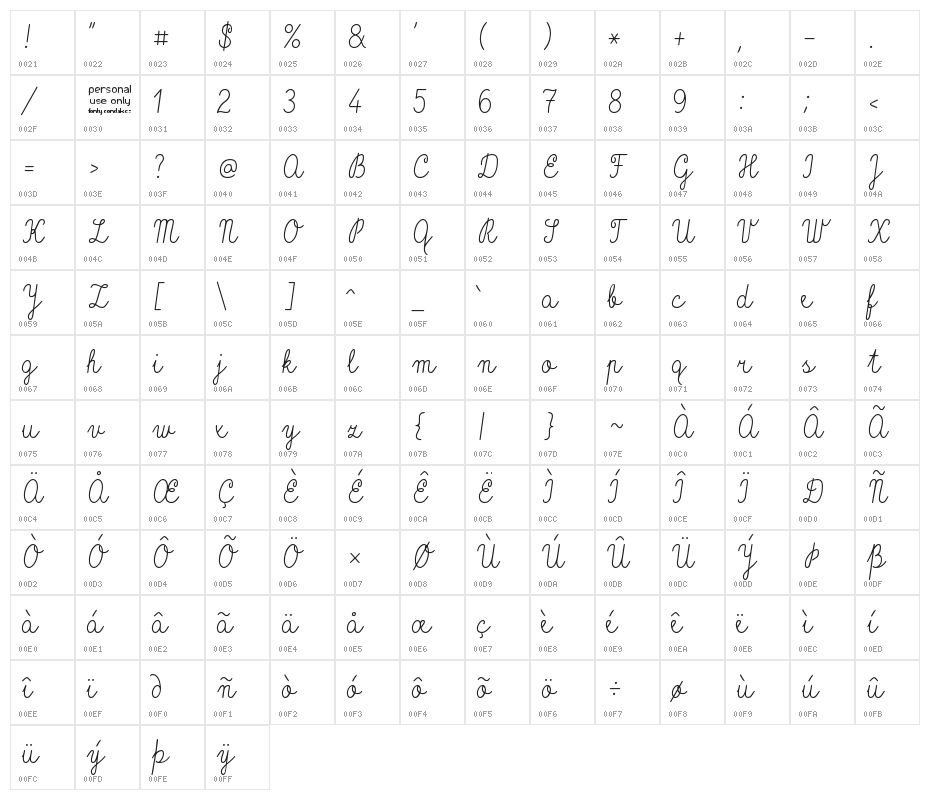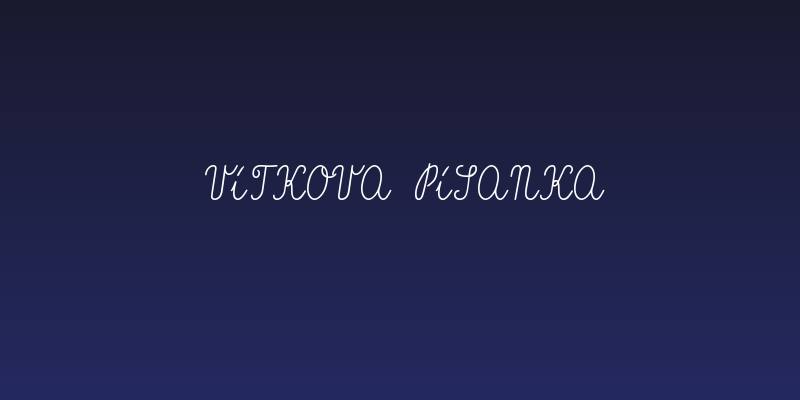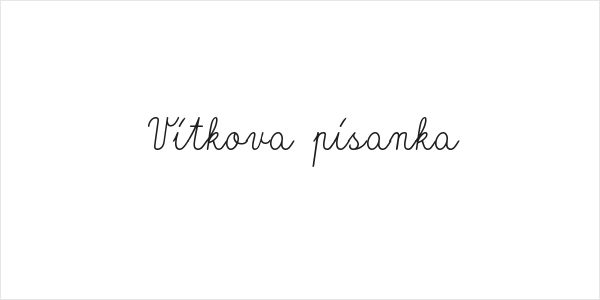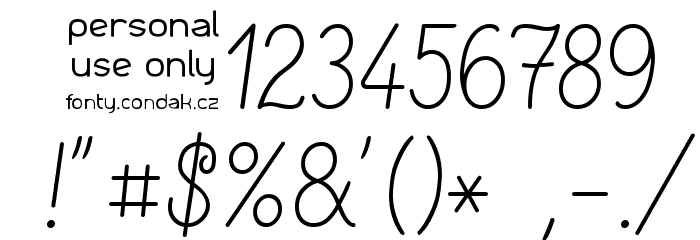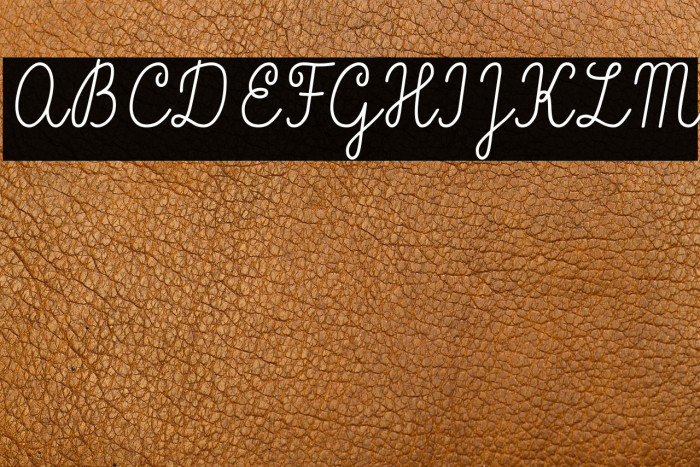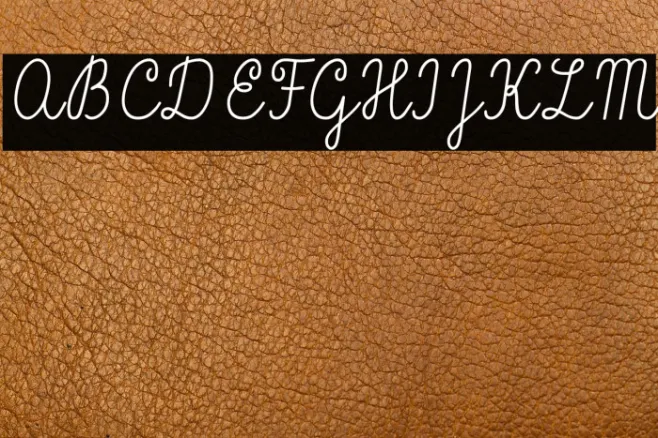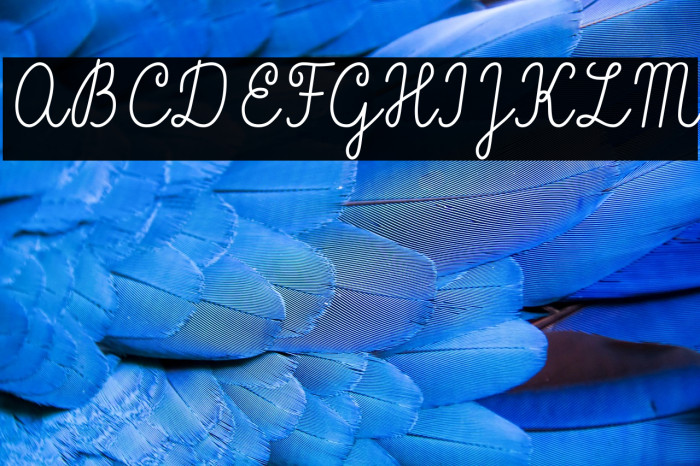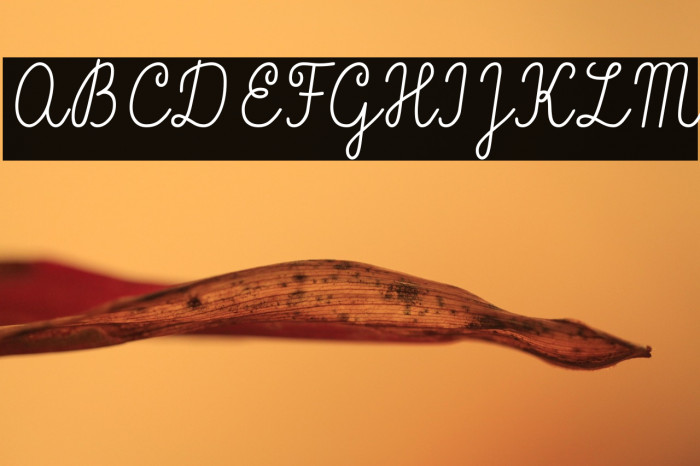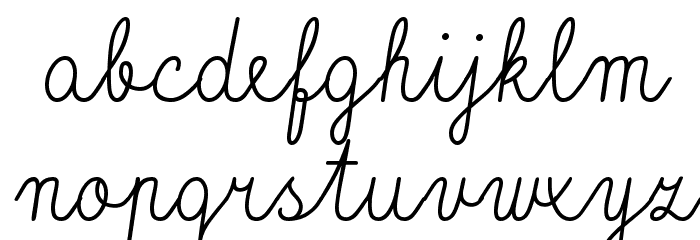
Vítkova písanka Font
Vítkova písanka Description
This font features a flowing, cursive style that mimics elegant handwriting. The letters are interconnected, creating a seamless and fluid appearance. The uppercase letters are slightly more elaborate, with gentle curves and loops, while the lowercase letters maintain a consistent and smooth flow. The numerals and special characters are designed to match the overall cursive aesthetic, ensuring a cohesive look across all text elements. The font's delicate strokes and graceful lines make it suitable for projects that require a personal and sophisticated touch.